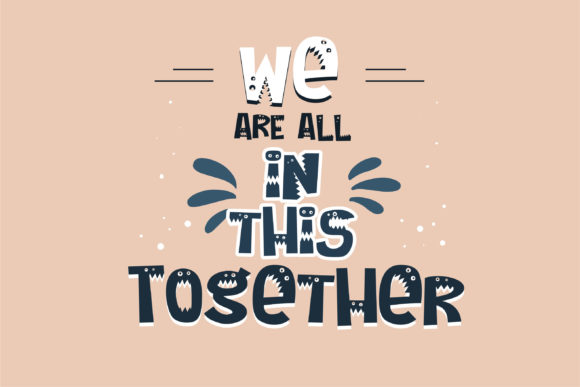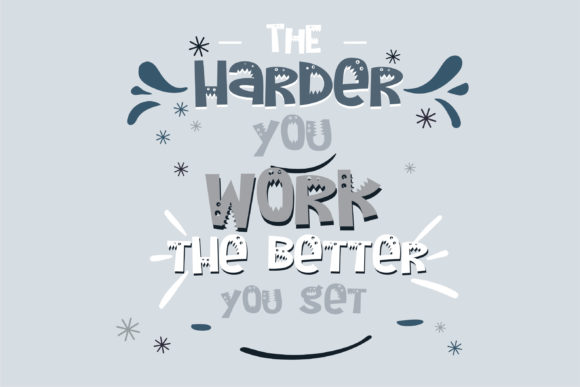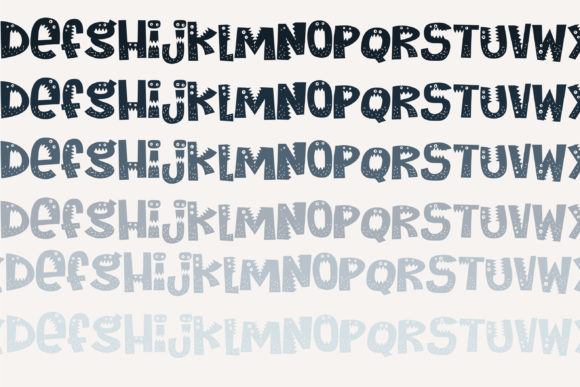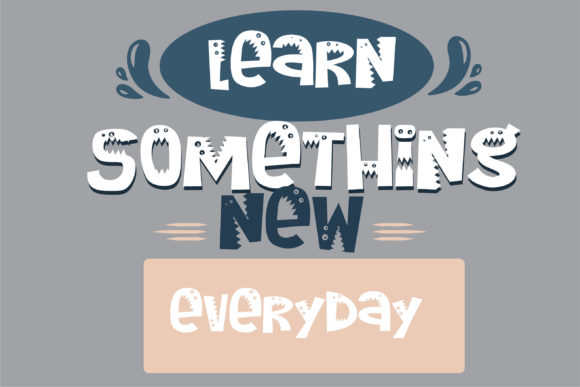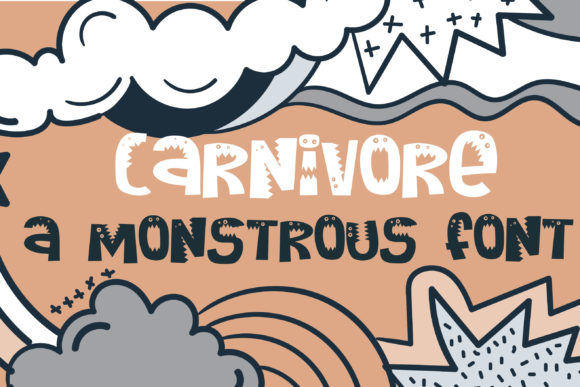
The Wild Side of Typography: A Deep Dive into Carnivore Font
I’ll never forget the time I was working on a project for a children’s birthday party invitation. I had the design concept nailed, but something was missing – the perfect font. That’s when I stumbled upon Carnivore Font, a whimsical decorative font that has teeth, eyes, and fur throughout. It was love at first sight! In this article, I’ll share my experience with Carnivore Font, its features, and how to make the most of it in your designs.
An Honest Review of Carnivore Font
Carnivore Font is a unique and playful font that can add a touch of fun and youthfulness to any design project. Here’s what I love about it:
- ✨ Unique and quirky design with teeth, eyes, and fur throughout
- ✅ Perfect for fun and youthful designs, such as children’s party invitations, stickers, or crafts
- 🌈 Great for branding and packaging designs that need a playful touch
However, there are a few quirks to consider:
- 🤔 May not be suitable for formal or professional designs, such as business cards or resumes
- ⚠️ Some characters may be difficult to read or recognize, especially at small font sizes
The Story Behind Carnivore Font
Carnivore Font was designed by a team of creatives who wanted to create a font that would bring a touch of fun and playfulness to designs. Inspired by the wild and quirky world of carnivores, the font features teeth, eyes, and fur throughout, giving it a unique and recognizable personality. Whether you’re a designer, crafter, or creative hobbyist, Carnivore Font is sure to inspire your next project.
| Is Carnivore Font suitable for body text? | No, Carnivore Font is best used for headlines, titles, and short text passages. It’s not recommended for body text due to its decorative nature. |